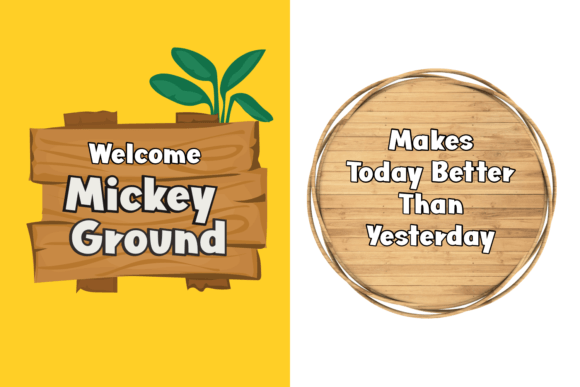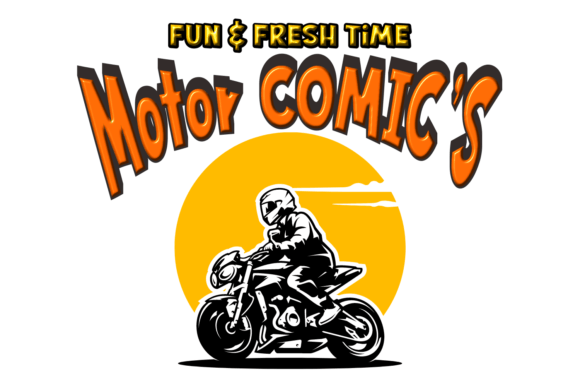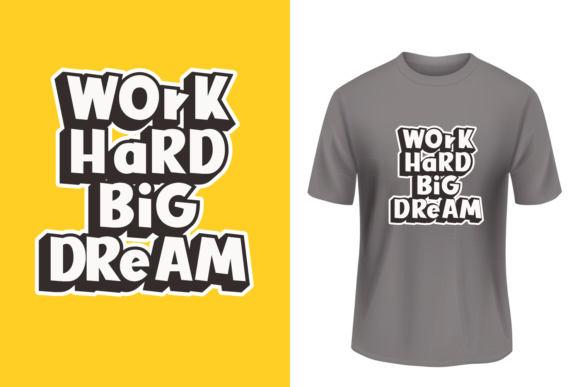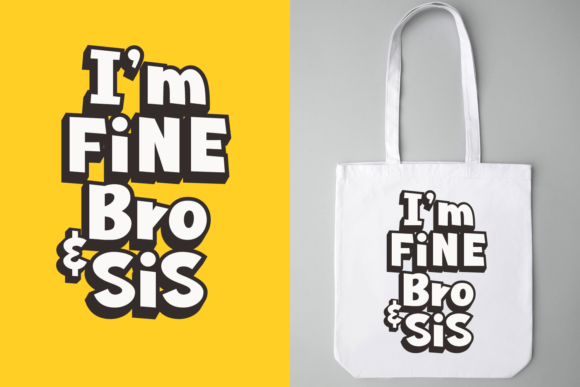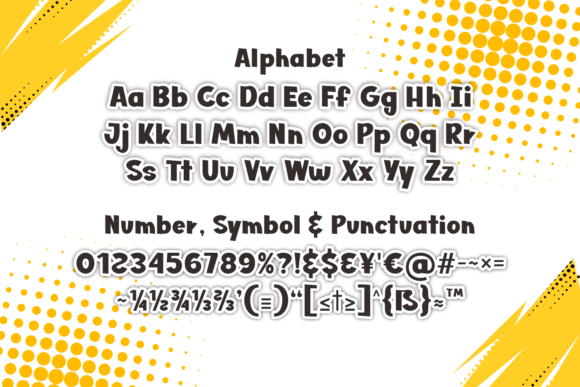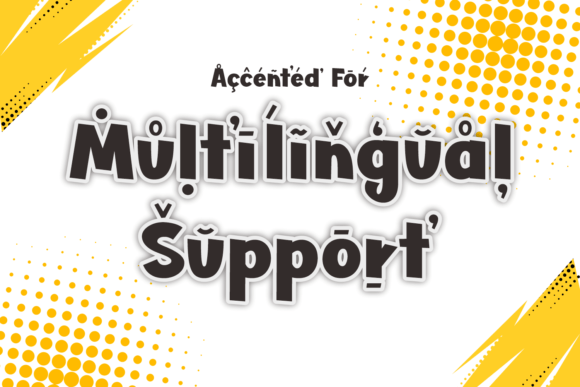
Introduction to Mickey Ground Font
Mickey Ground is a cute and charming display font.
Whimsical and a bit quirky, this font will brighten up each of your designs Add it confidently to your projects, and you will love the results.
Key Features of Mickey Ground Font
Why Choose Mickey Ground Font?
Mickey Ground Font offers exceptional quality and versatility, making it a valuable addition to your design toolkit. Whether you’re creating for personal projects or commercial use, Mickey Ground Font delivers professional results.